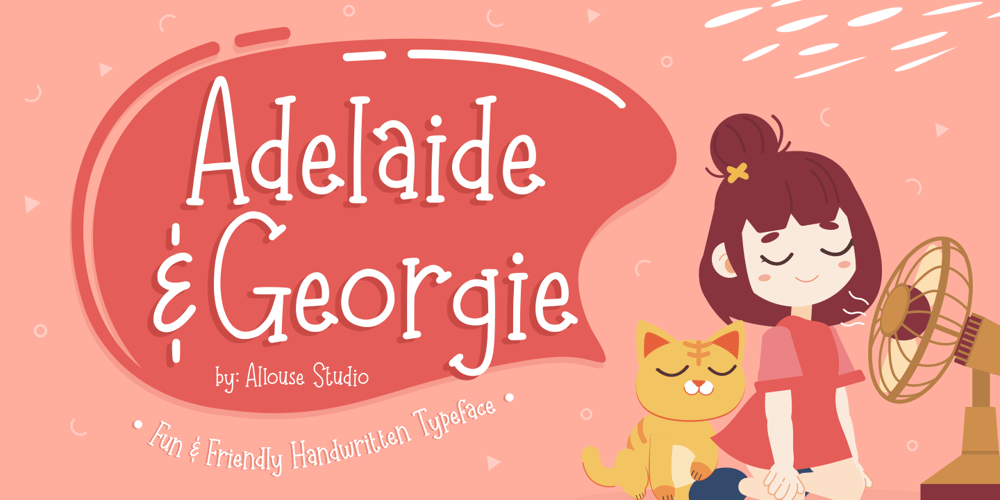
Adelaide & Georgie Font Family was designed by Fachrizal Yusuf and published by Allouse Studio. Adelaide & Georgie contains 1 styles and family package options. Adelaide & Georgie a Friendly Handwritten Typeface that will give you an fun, playful and friendy impression.Adelaide & Georgie is perfect for any tittles, logo, product packaging, branding project, megazine, social media, wedding, or just used to express words above the background. Adelaide & Georgie also come with Multi-Lingual Support.Enjoy the font, feel free to comment or feedback, send me PM or email. Thank You!